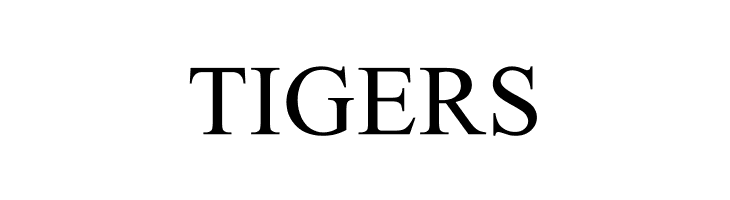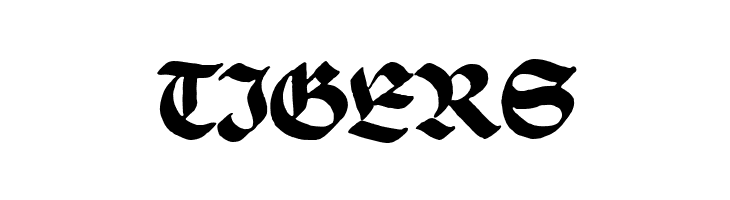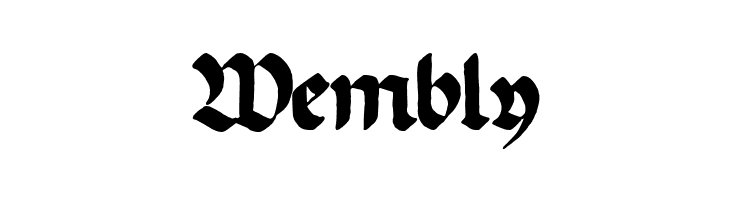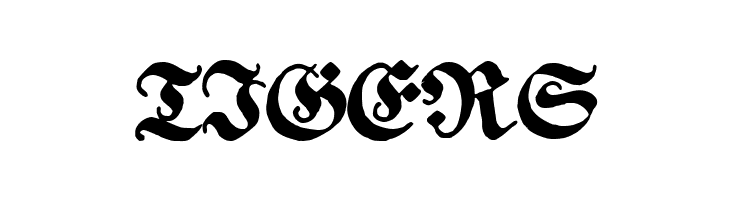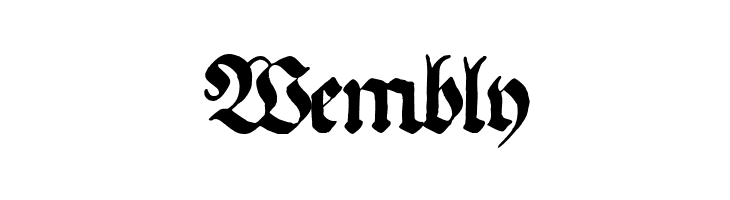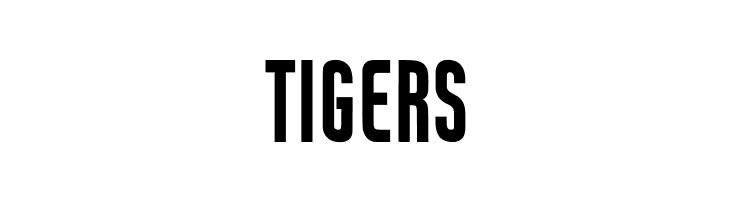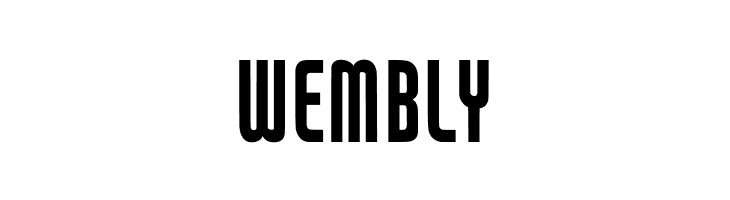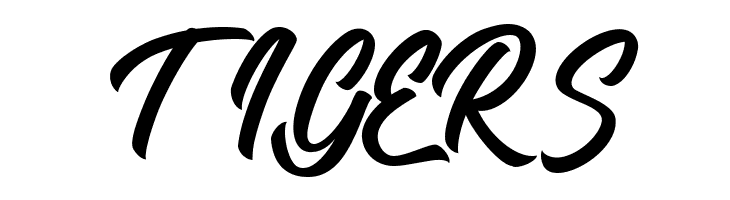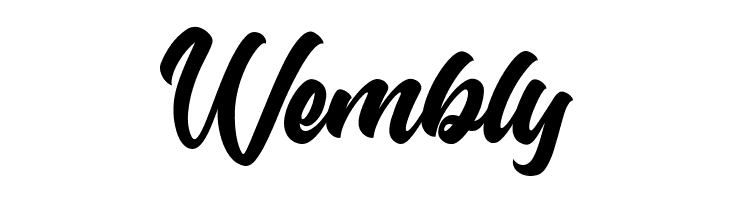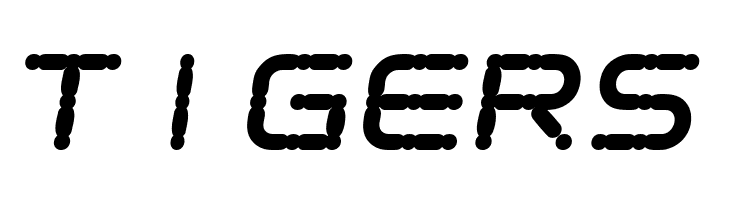
A futuristic, dotted font with a digital and modern aesthetic.
A futuristic, segmented font with a tech-inspired, dynamic design.
A futuristic, dotted font with a slanted, digital style.
A classic serif font with modern elegance and unique hieroglyphic symbols.
Decorative pictogram font inspired by Egyptian hieroglyphs.
Pictorial font inspired by Egyptian hieroglyphs.
A bold, hand-drawn style font with thick, uneven strokes.
A pictorial silhouette font evoking ancient Egyptian motifs.
A collection of Egyptian-themed illustrative icons depicting gods, symbols, and scenes.
A decorative set of icons inspired by ancient Egyptian culture and mythology.
A decorative font with cartoon-style Egyptian mythology illustrations.
A bold, slab serif font with a vintage yet modern appeal.
Egyptian-themed silhouette pictogram font with strong visual storytelling.
An ornate Blackletter font with intricate, gothic-inspired letterforms.
A traditional Blackletter font with intricate detailing and historical elegance.
A bold, blackletter font with intricate, angular letterforms and a medieval aesthetic.
A bold, intricate blackletter font with a medieval aesthetic.
Ornate, illustrative font with abstract, tribal-inspired glyphs in ovals.
Ornamental display font using illustrated eggs for each character.
A dynamic and fluid handwritten font with cursive letterforms.
A decorative font inspired by ancient Mayan glyphs, featuring intricate and bold designs.
A bold, energetic script font with a dynamic 1980s flair.
A science-themed illustrative display font with Einstein and physics motifs.
A bold, geometric font with a three-dimensional outline and angular shapes.
A bold, dynamic handwritten font with a brush-like texture and artistic flair.
A bold, expressive script font with flowing cursive letterforms.
A bold, modern, and condensed sans-serif font with a geometric structure.
An ornate and decorative font with intricate flourishes and a mystical style.
A bold, 3D italic font with a futuristic and dynamic style.
A bold, geometric 3D font with strong outlines and a blocky appearance.
A bold, italicized font with geometric outlines and a futuristic style.
A bold, geometric font with a retro-modern style.